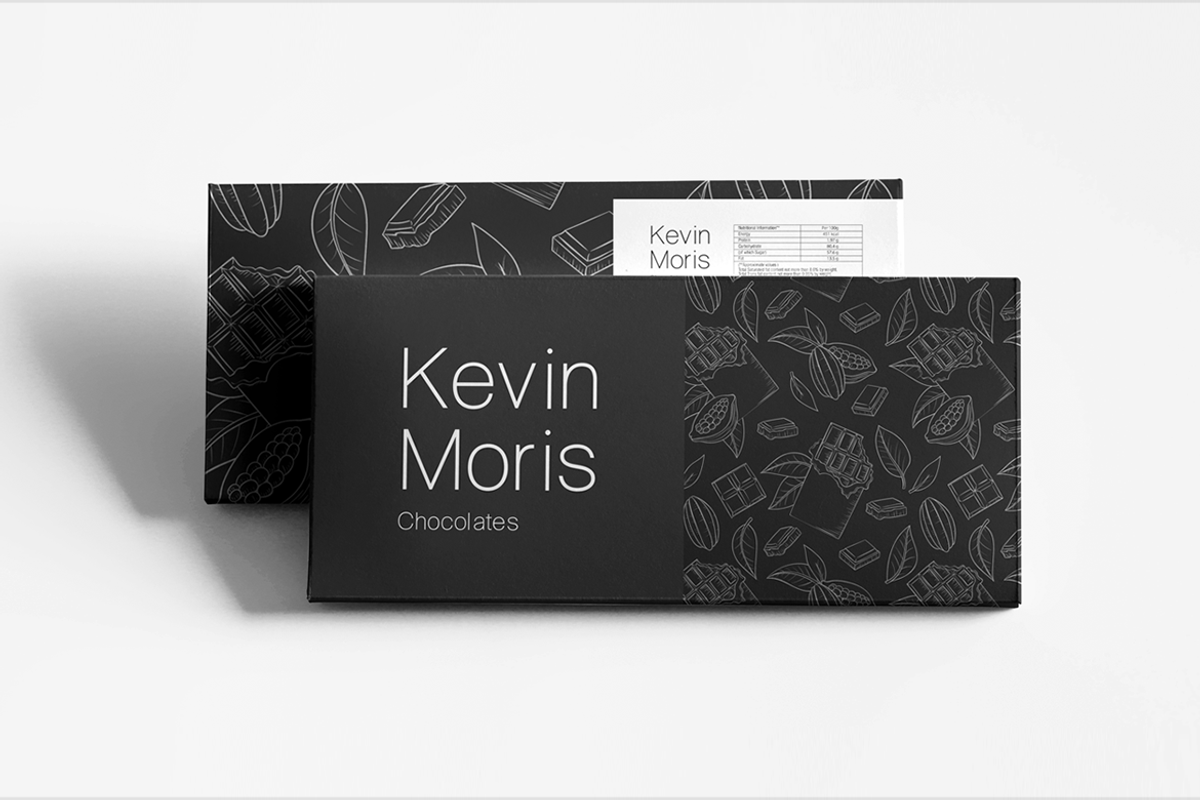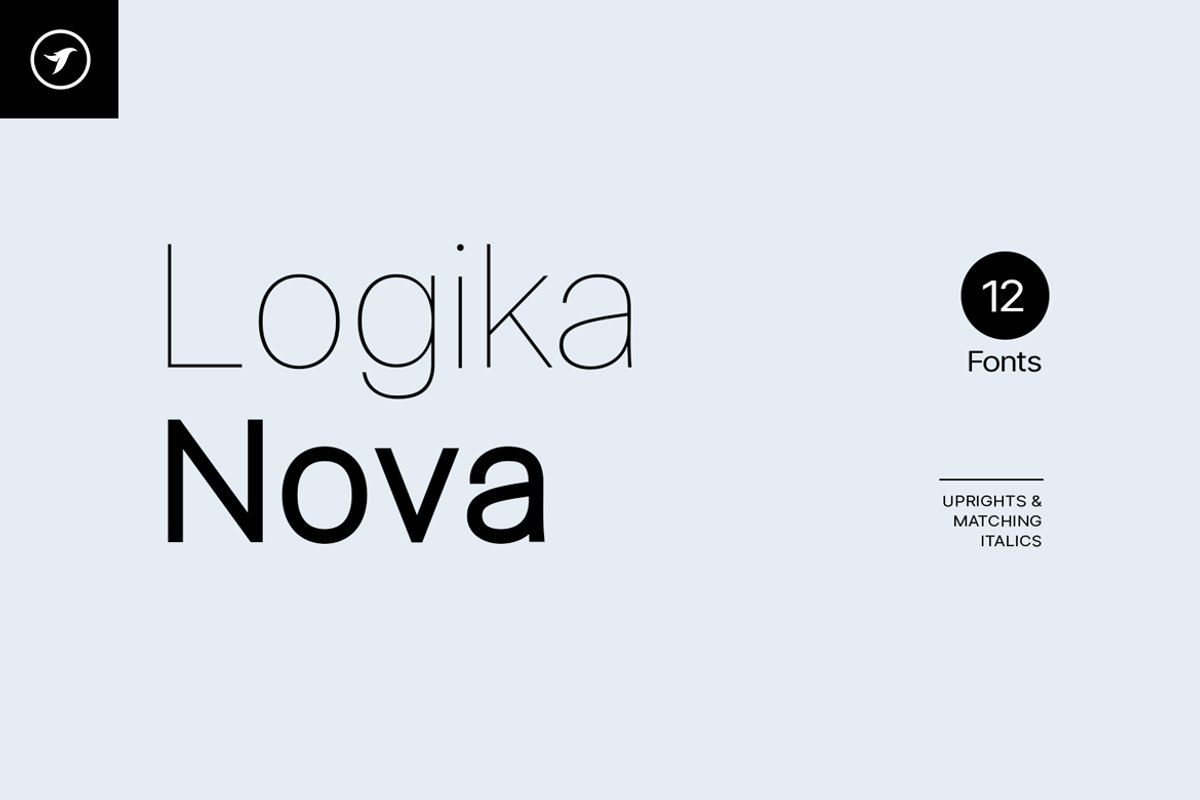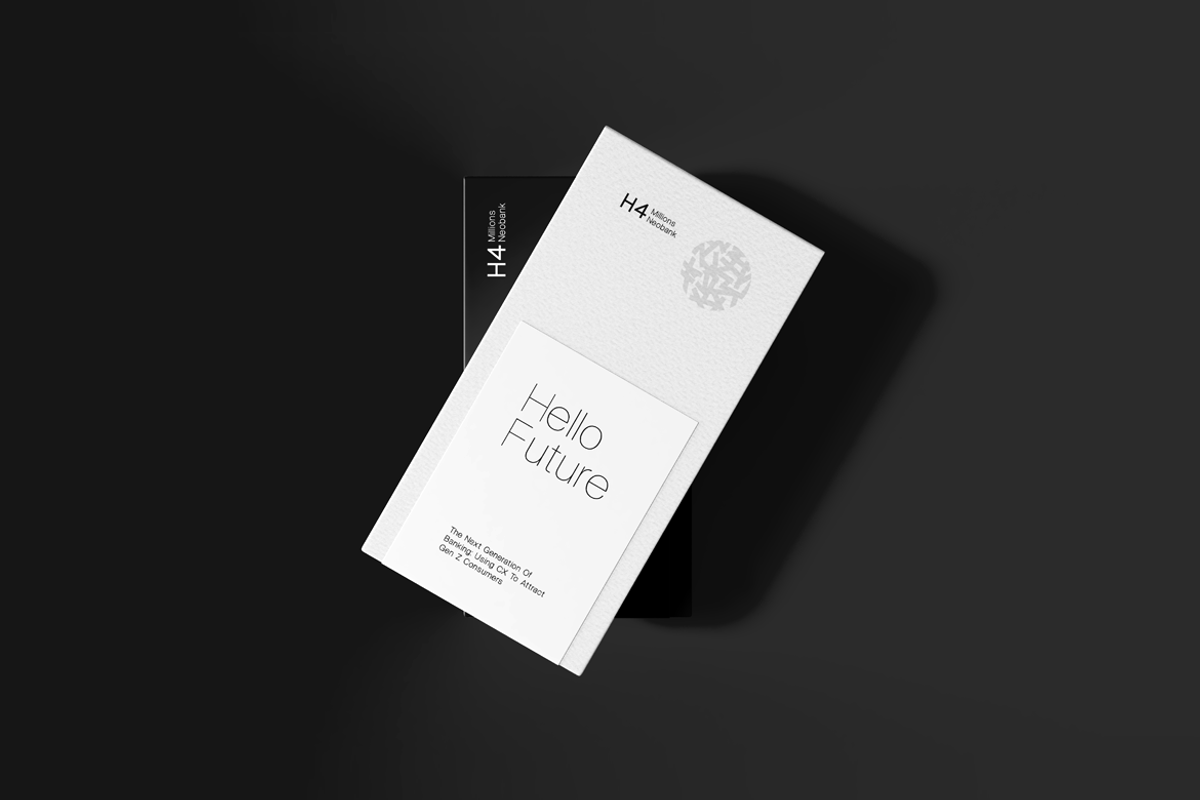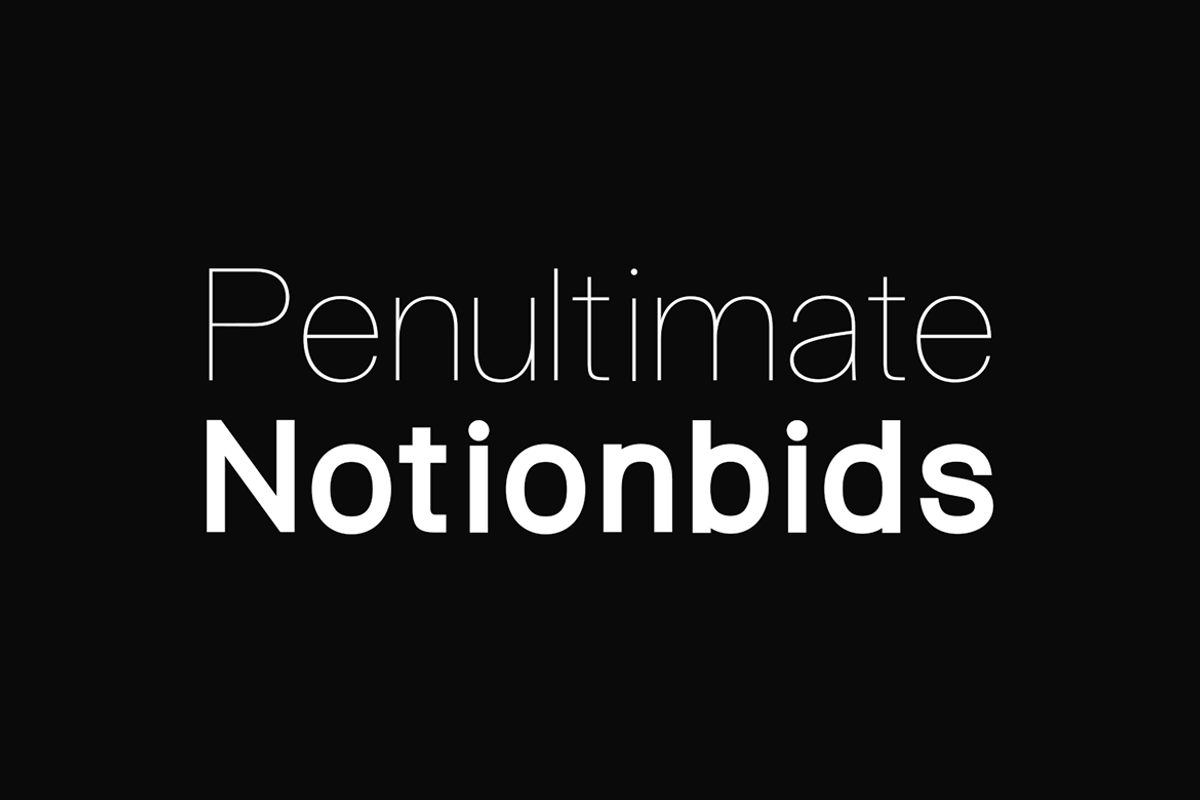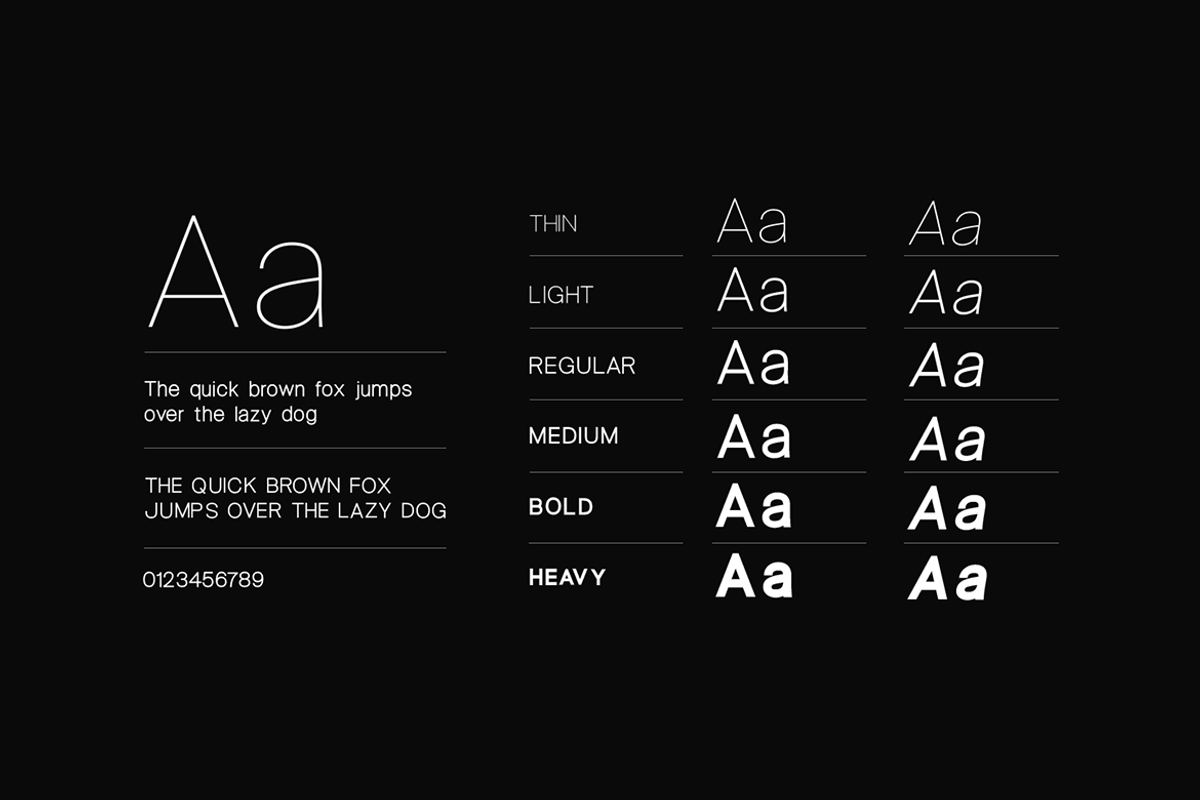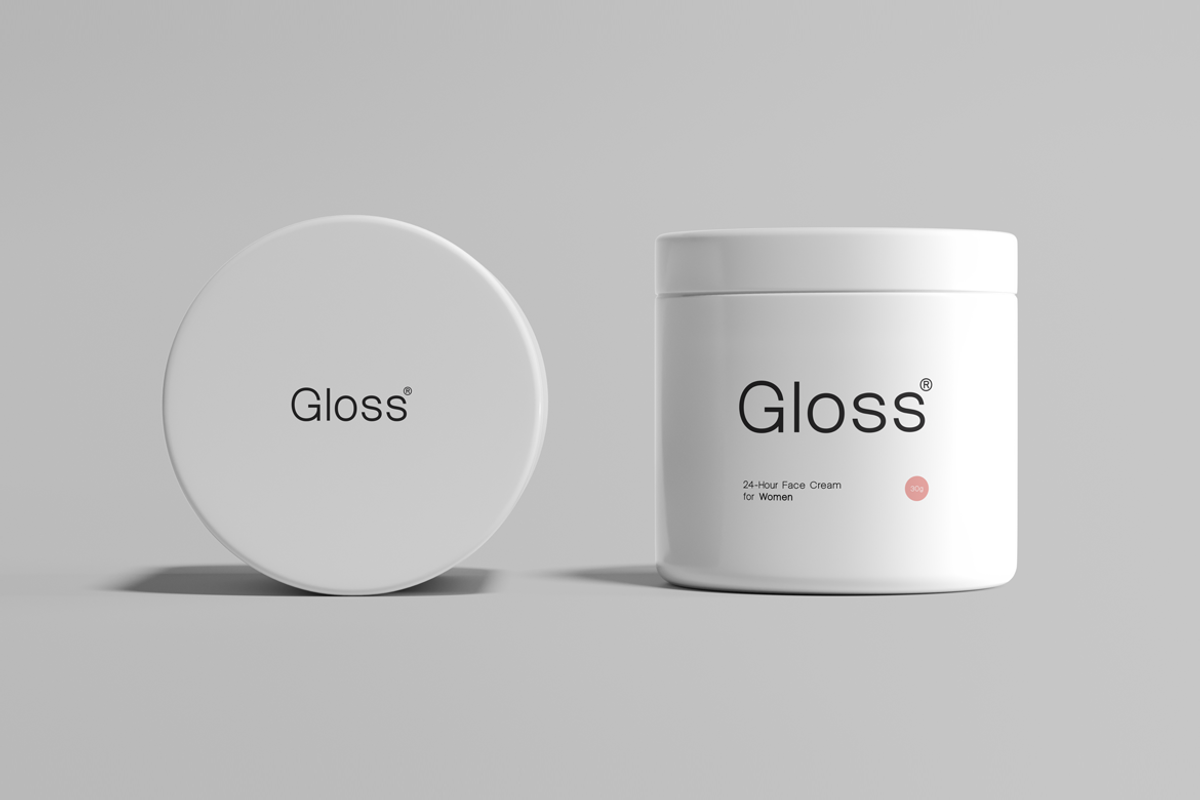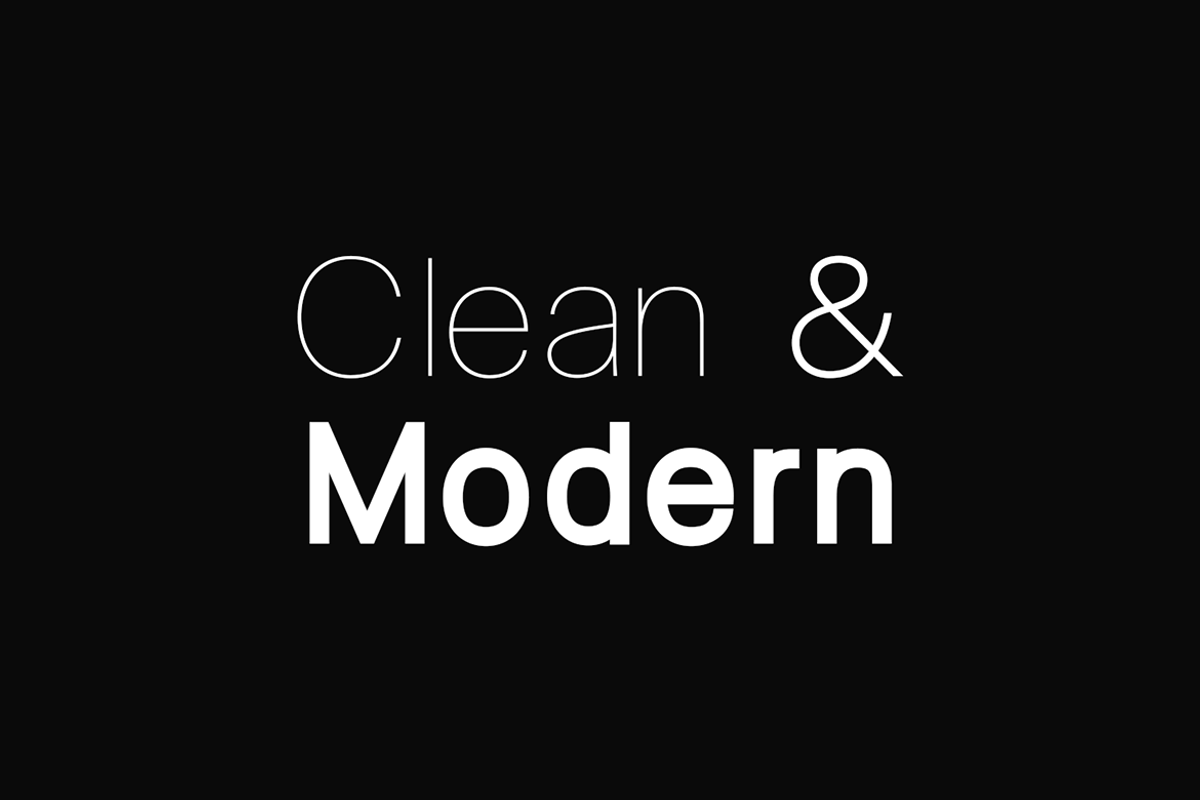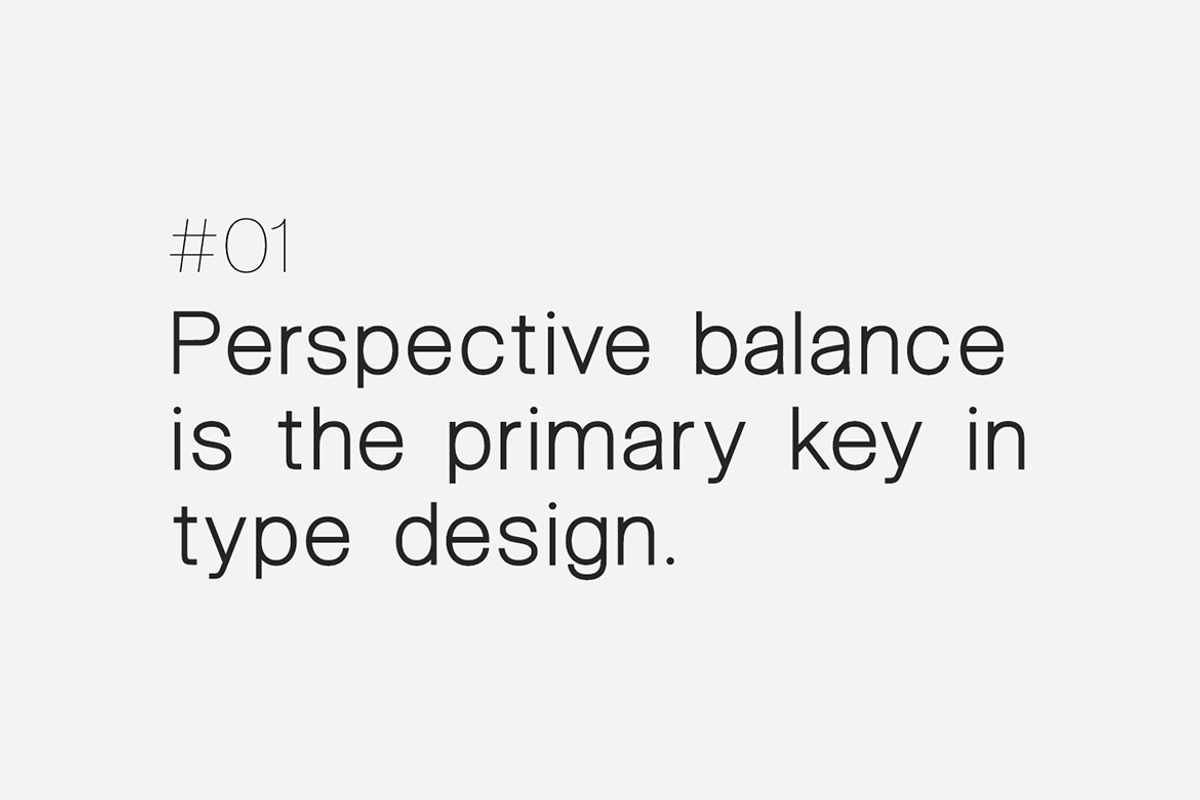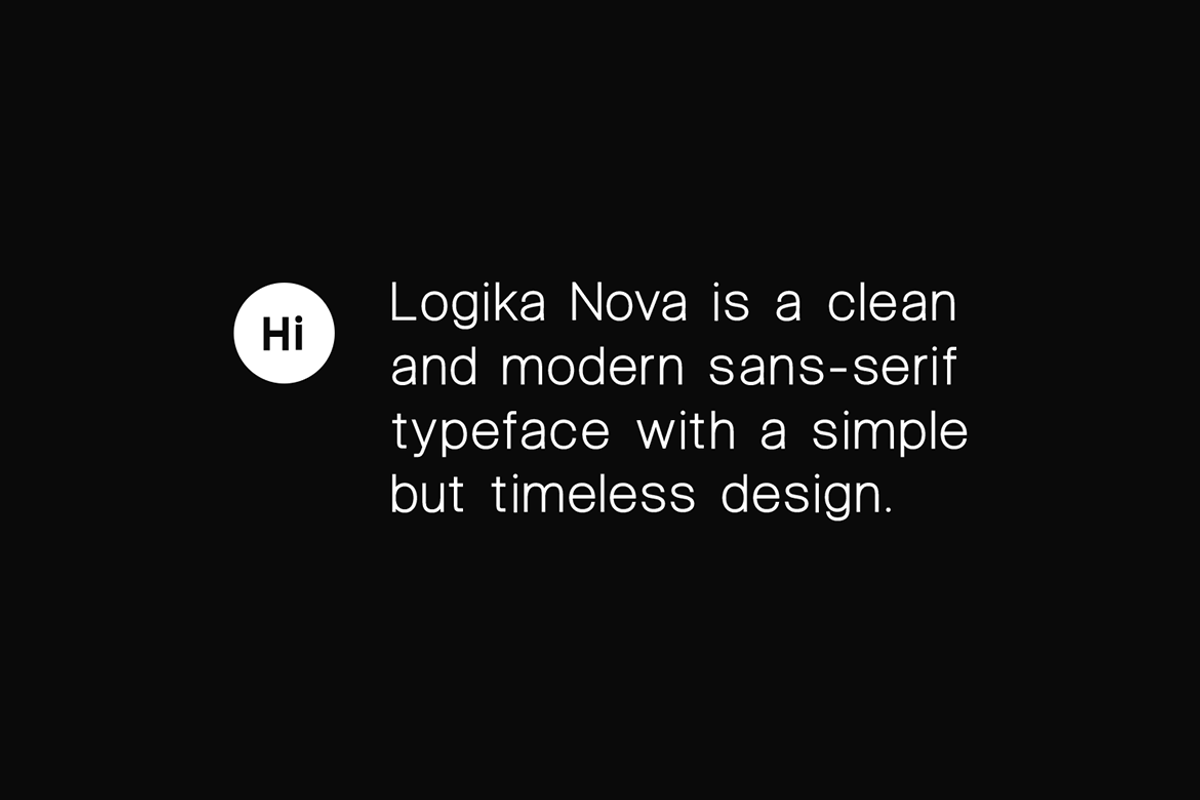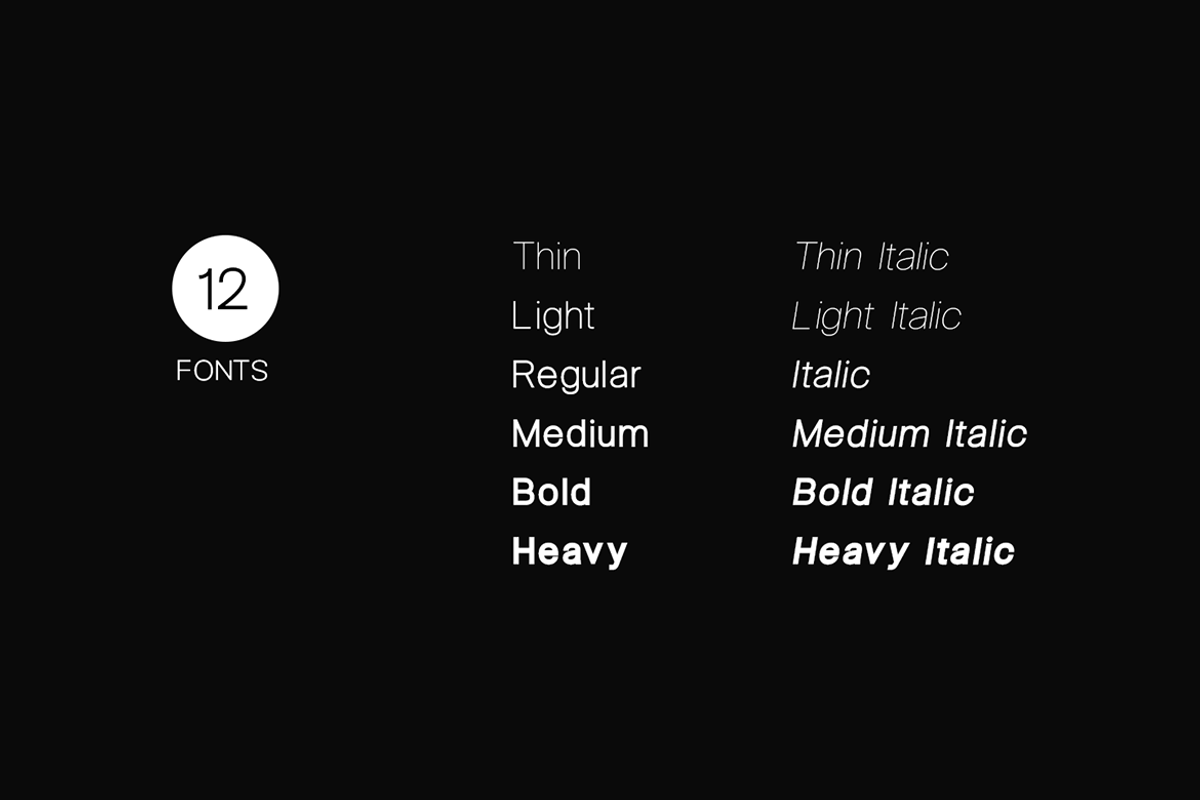
LOGIKA NOVA - Minimalist Font Family
Logika Nova is a simple, clean typeface with a modern design and remarkable appearance. This is a perfect choice for creating logotypes, branding, headlines, corporate identities, and marketing materials for web, digital & print alike.
The typeface will be a great option for branding, logo/logotype design projects, marketing graphics, banners, posters, signage, corporate identities, and editorial design. Adding extra letter spacing will make this font the perfect choice for minimal headlines and logotypes, as shown in the promo designs attached.
Handcrafted and designed with powerful OpenType features in mind, each weight includes extended language support with Western European, Central European, and South Eastern European sets. A total of 280 glyphs are available.
Logika Nova typeface includes 12 fonts, with six upright weights (Thin / Light / Book / Regular / Bold / Heavy) and Italic equivalents of all six weights. The pack contains Desktop Fonts (OTF, TTF) and Web Fonts (all EOT, SVG, and WOFF included) as licensing options. HTML & CSS WebFont preset & demo are available in the download pack.